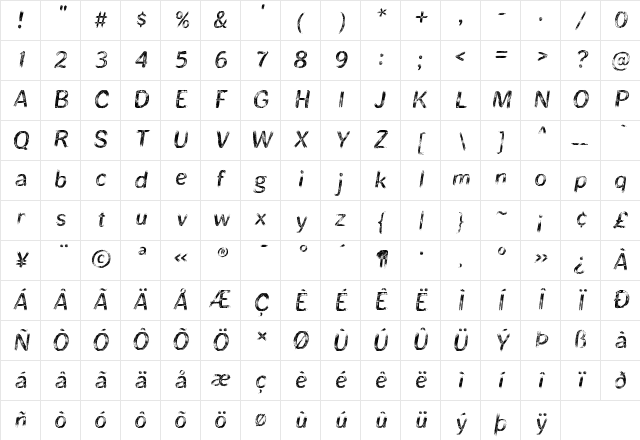
Bristles Regular
Design Context for Bristles
Bristles is a composed and adaptable typeface that performs quietly and consistently across a wide range of design contexts.